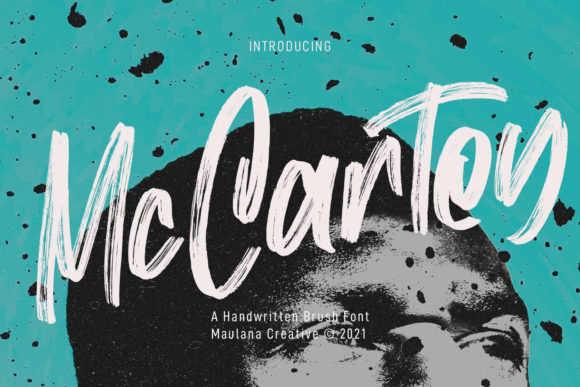
Mc Cartey is a cool, brushed and street styled display font. This font is suitable for designs such as t-shirts, sportswear, logos, advertisements, clothing, and more.